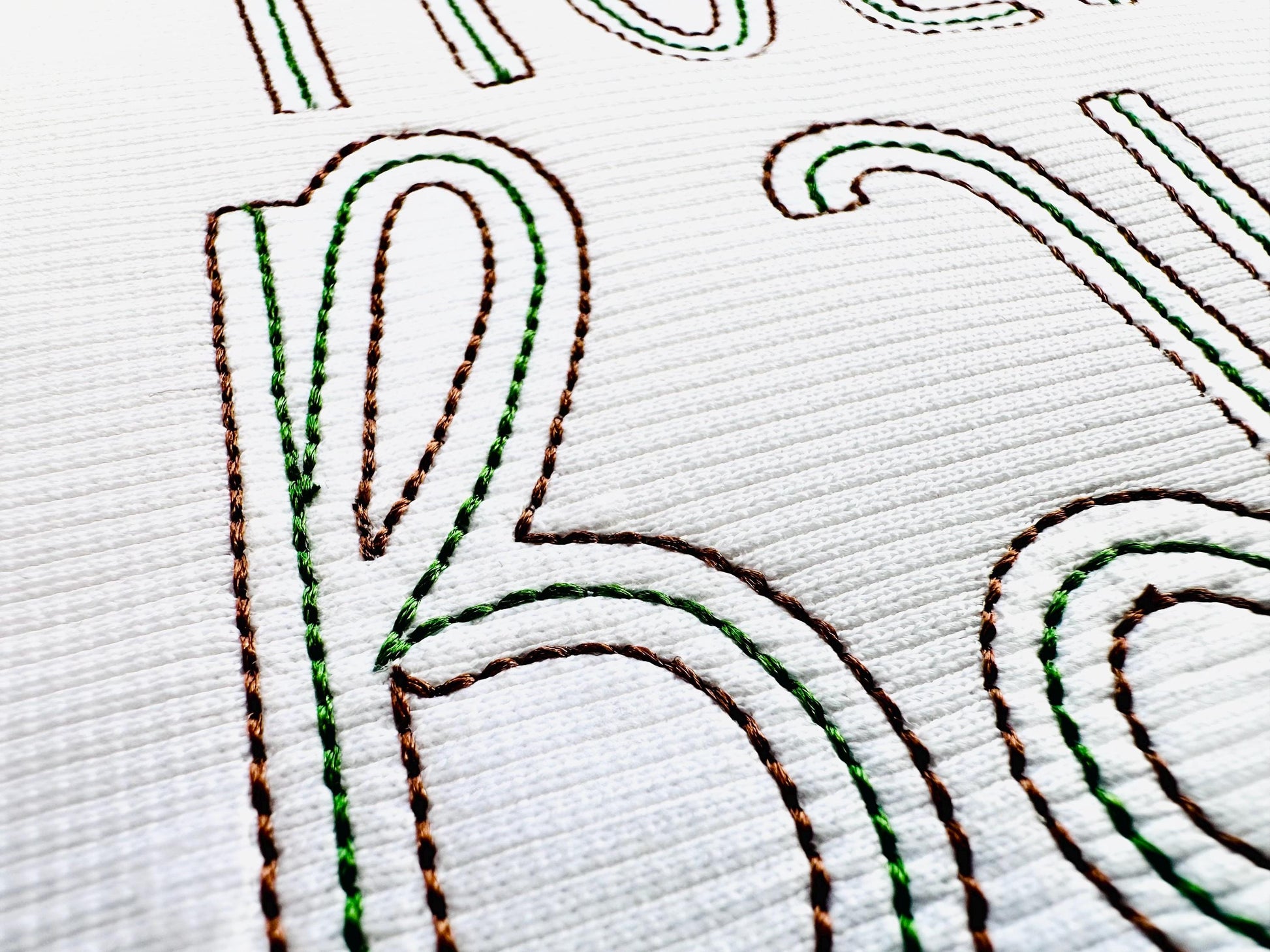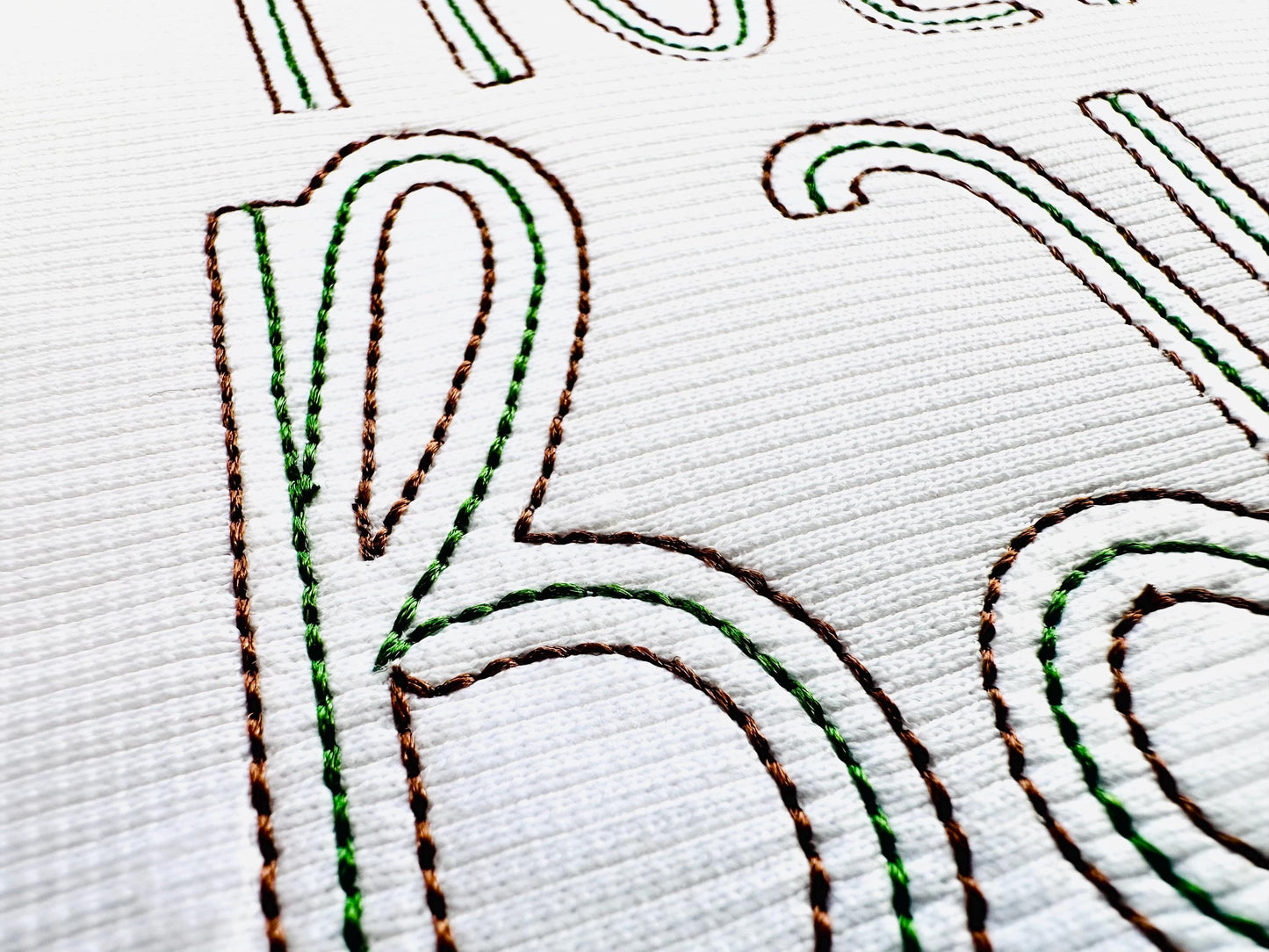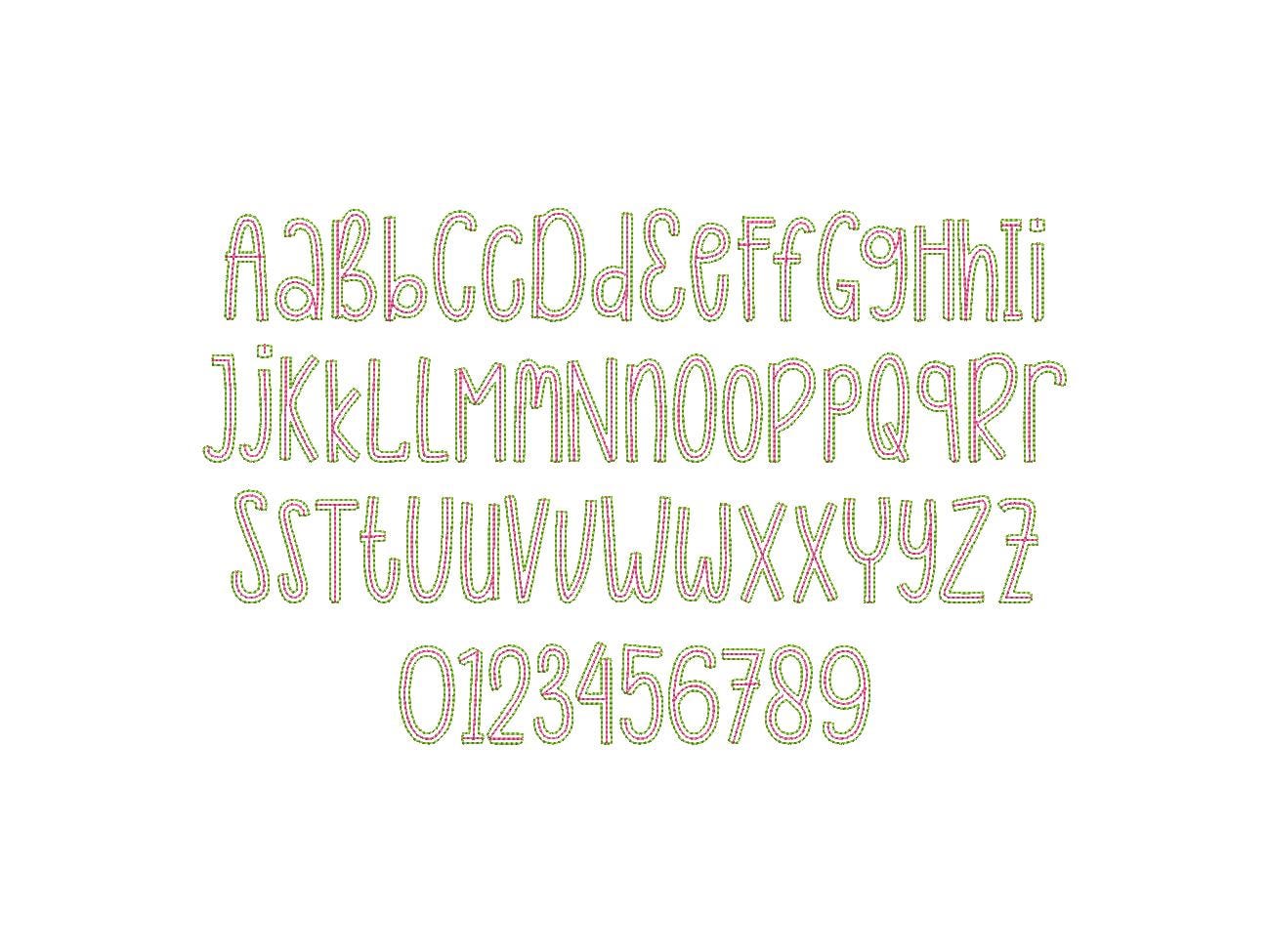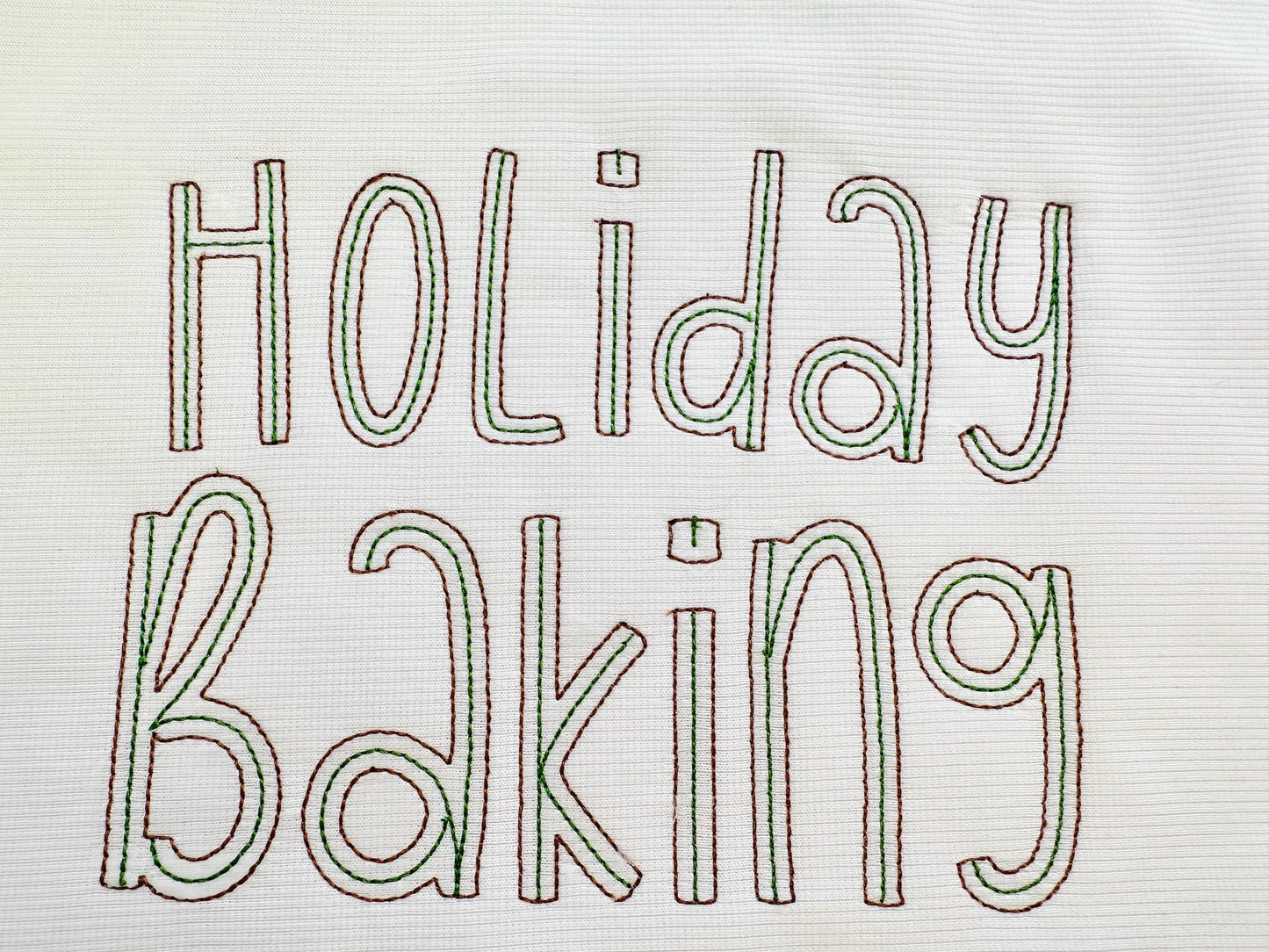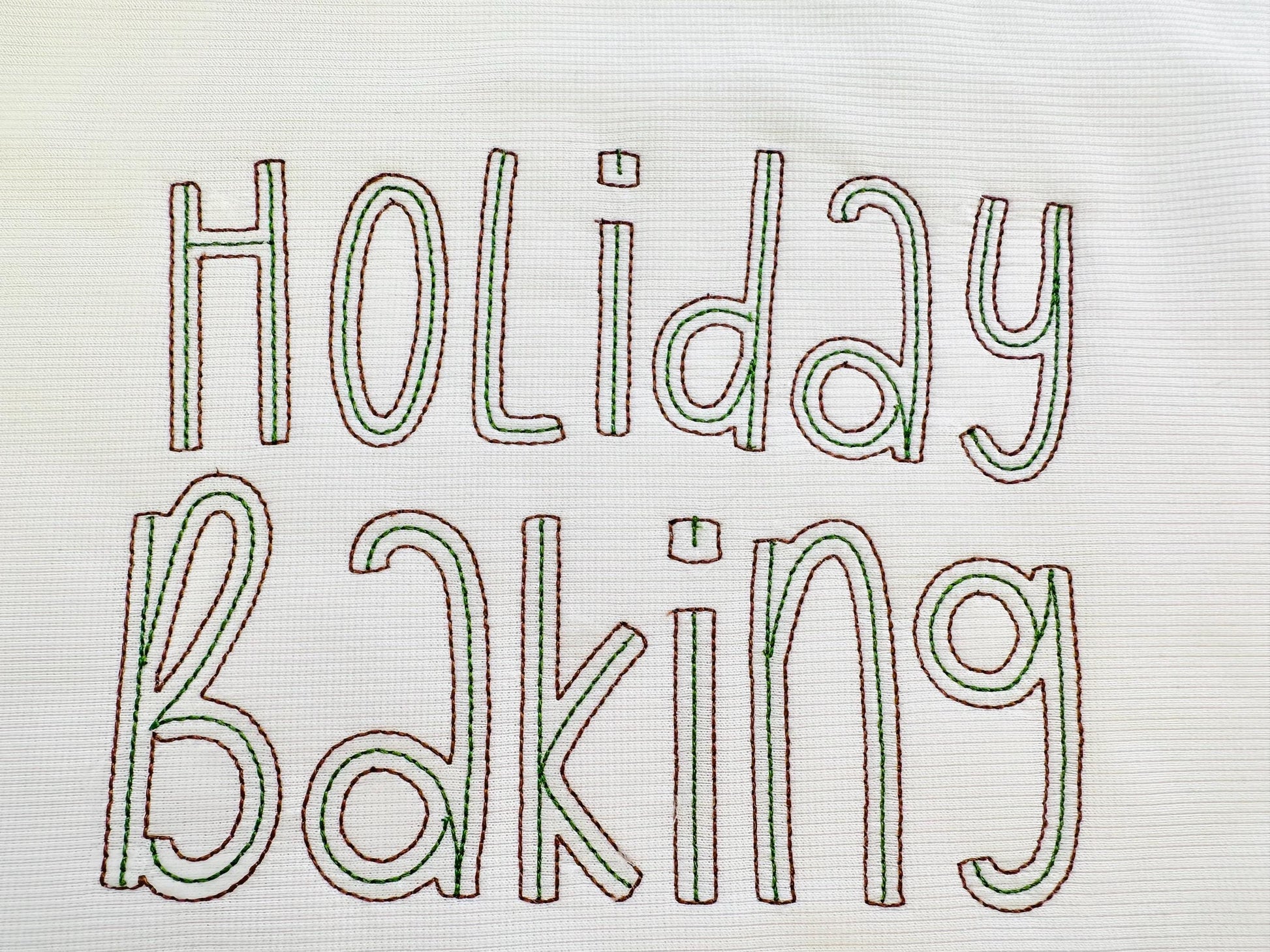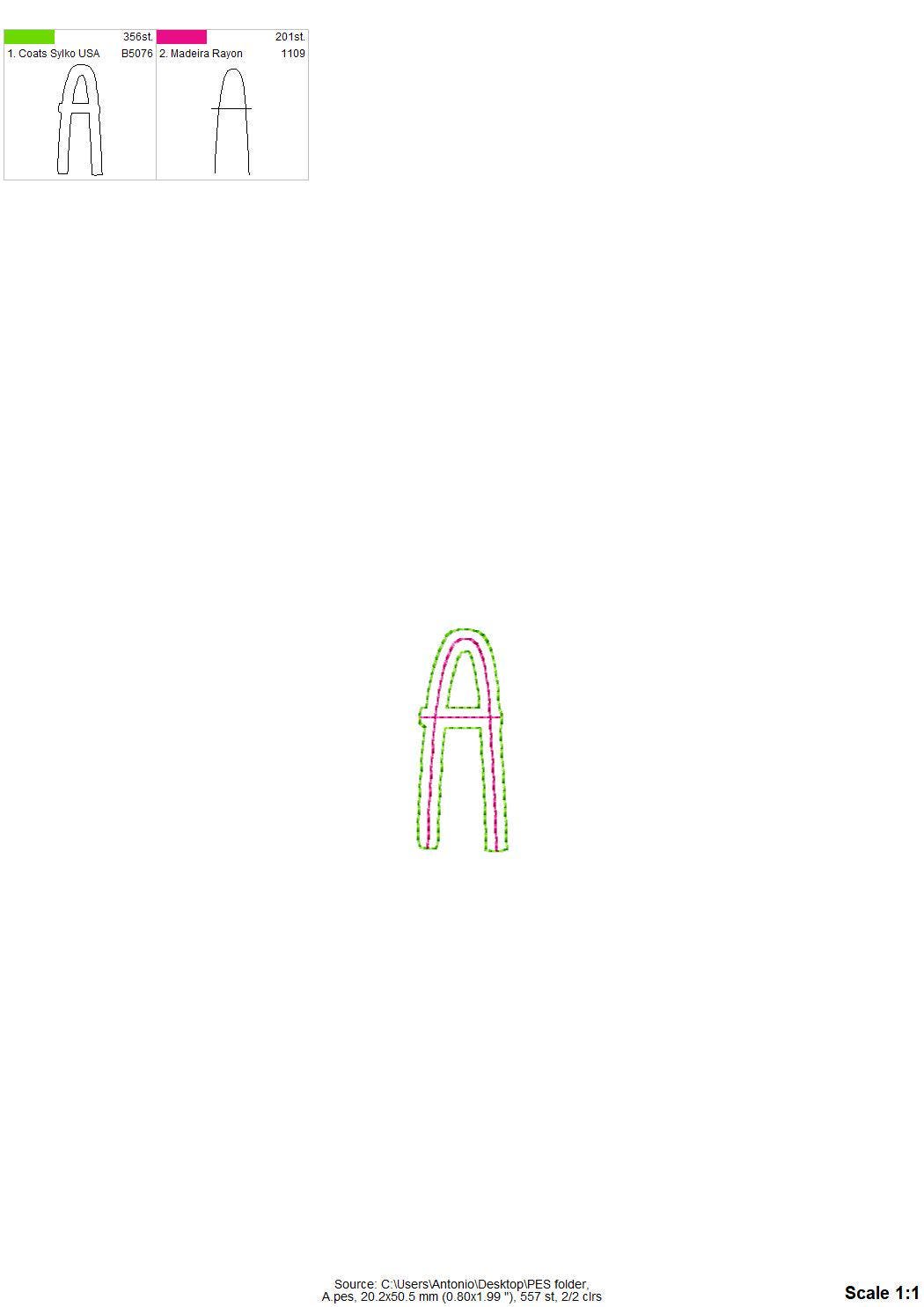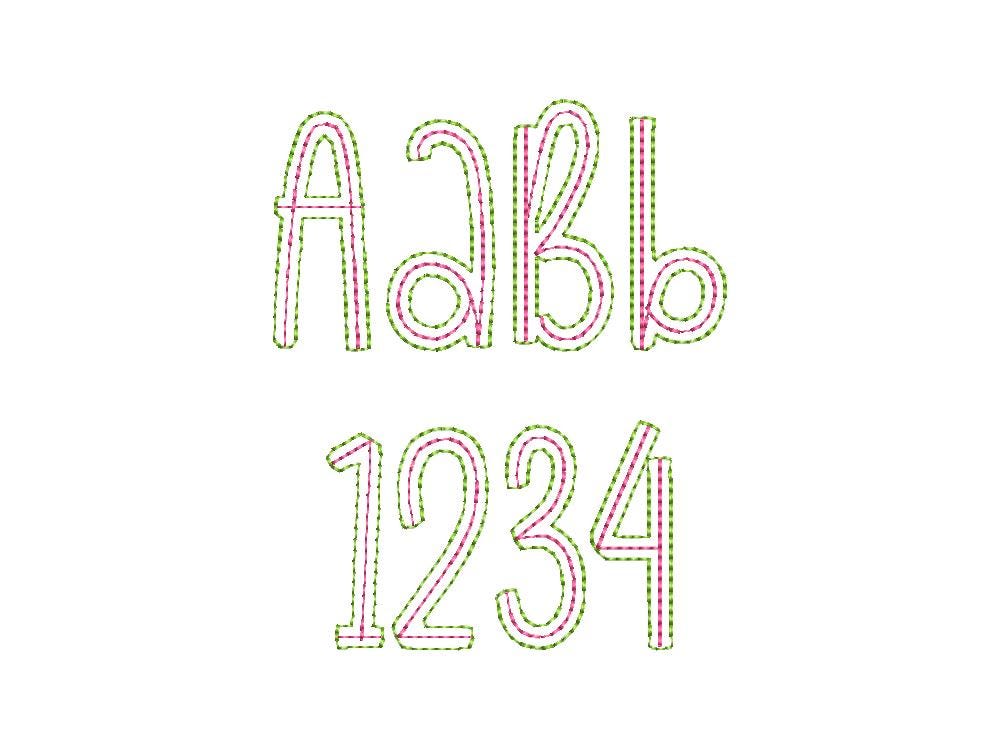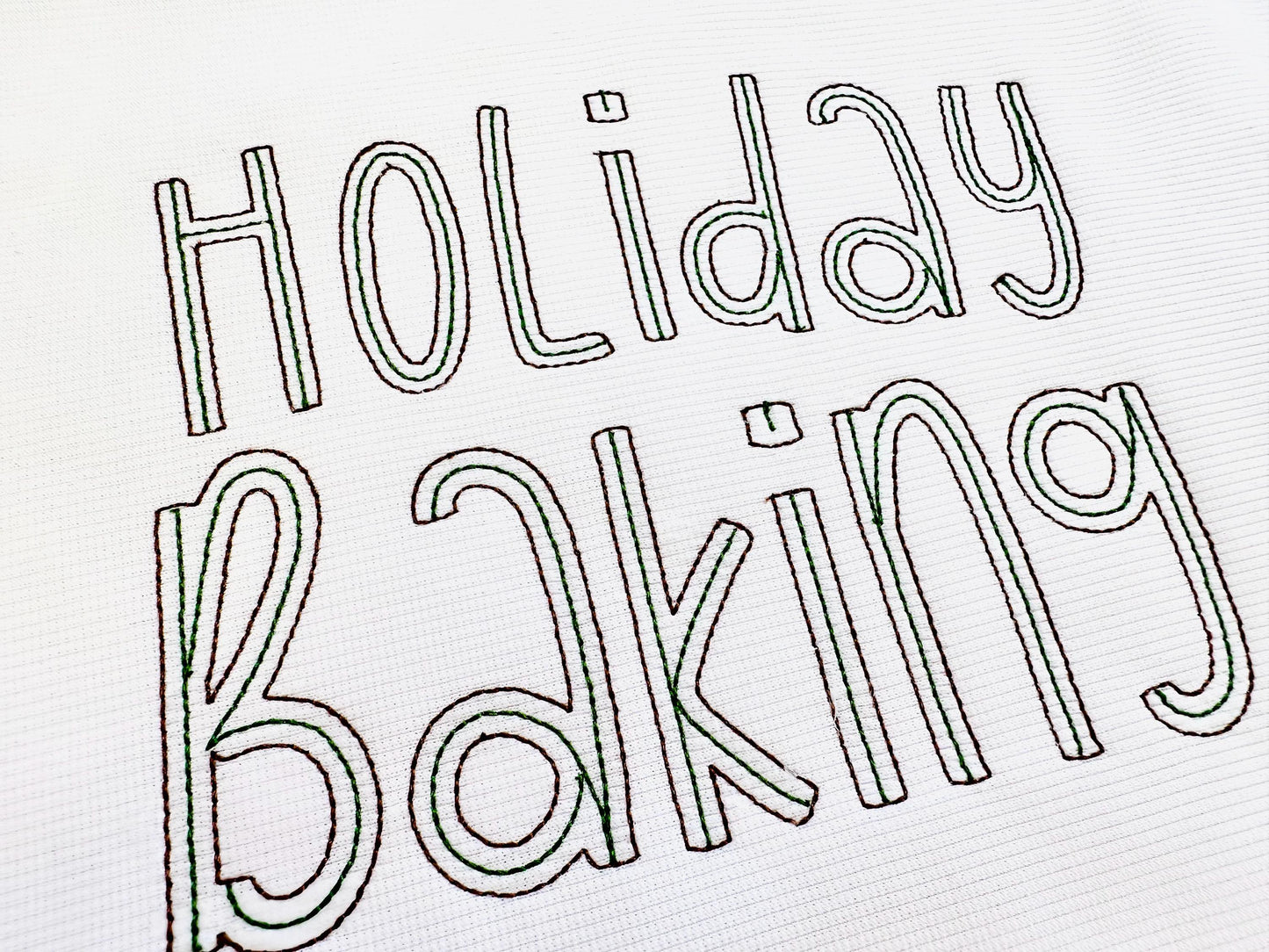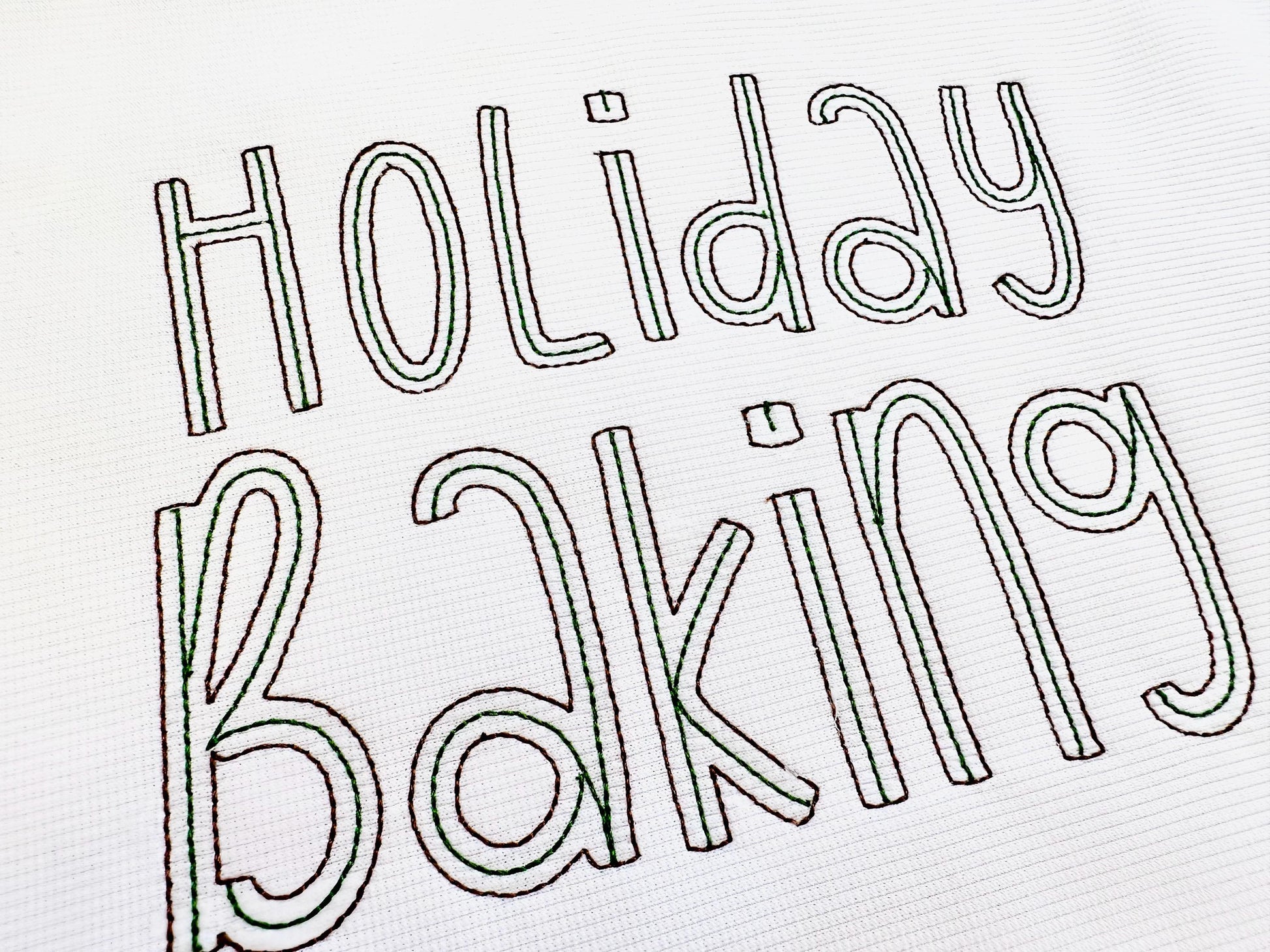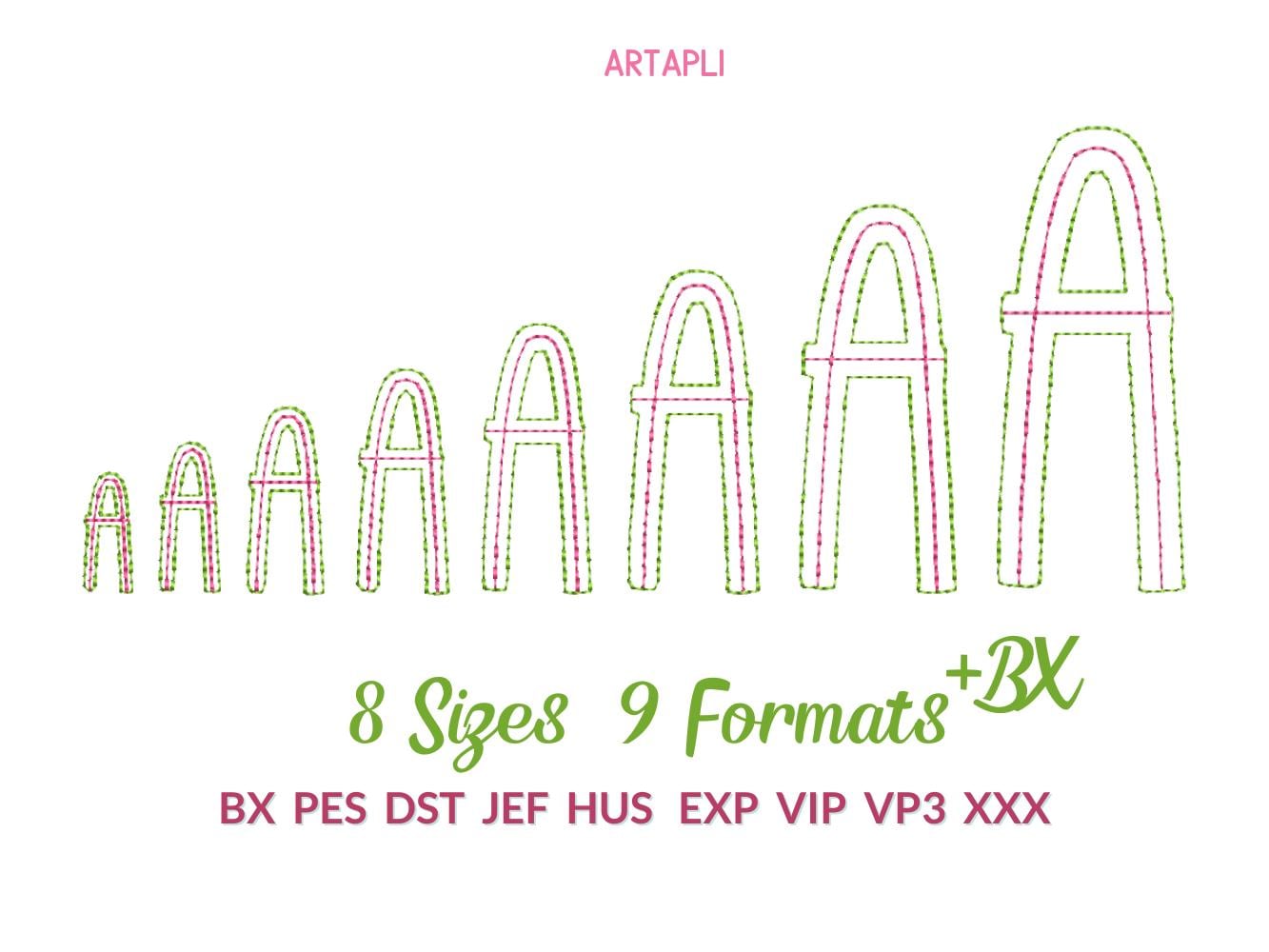
Thin Outline Bean Stitch Font
Or click to open the linkA thin outline font in bean stitch with a hand-stitched look. Sweet for names, monograms and sayings, and it also works as raggedy edge applique.
Uppercase and lowercase letters, all one height, and numbers 0 to 9 in eight sizes: 0.9, 1.1, 1.4, 1.6, 2, 2.4, 3 and 3.5 inches. Bean stitch inside and around each letter lets the fabric show through.
- Thin bean stitch outline font
- Uppercase and lowercase letters, numbers 0-9
- 8 sizes, 0.9 to 3.5 in